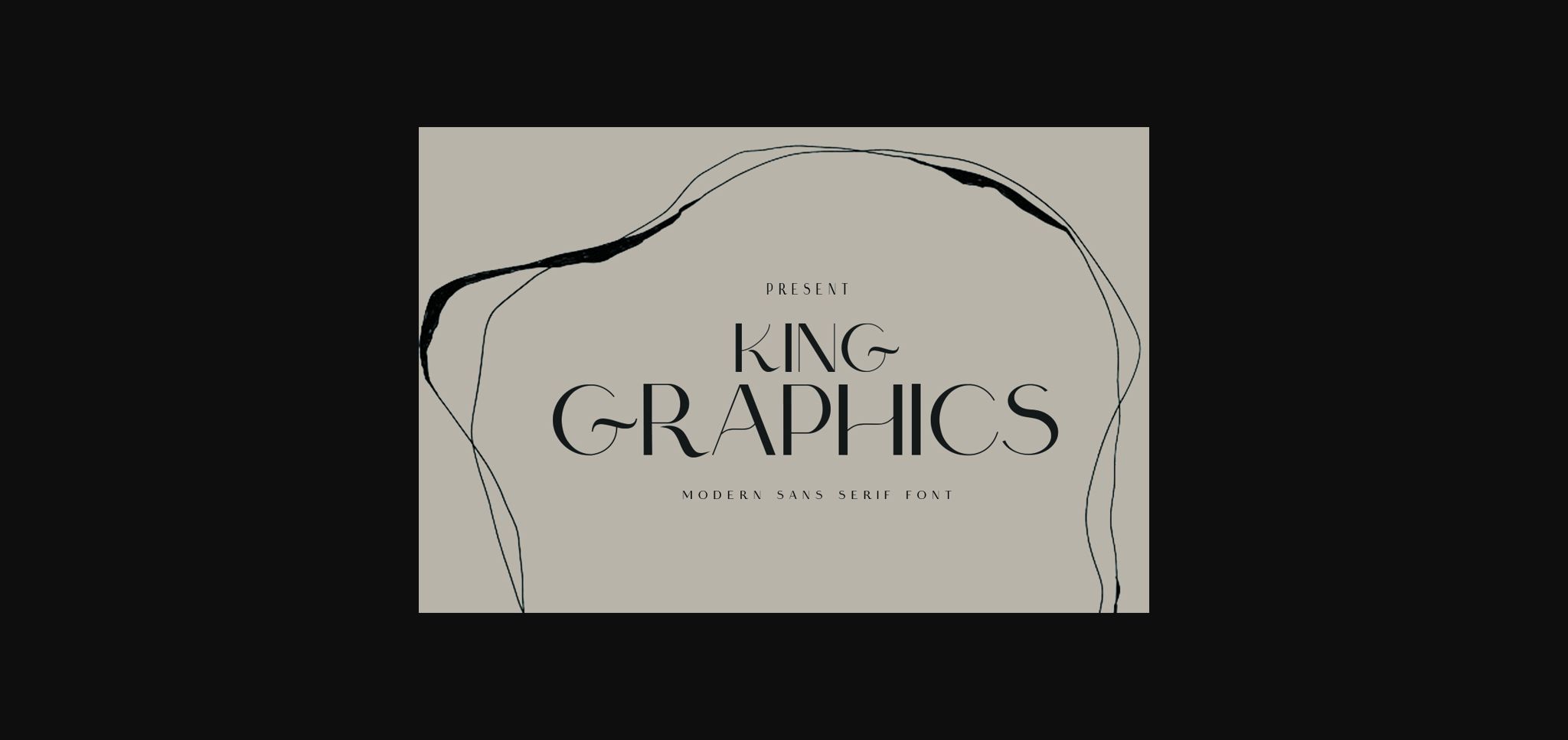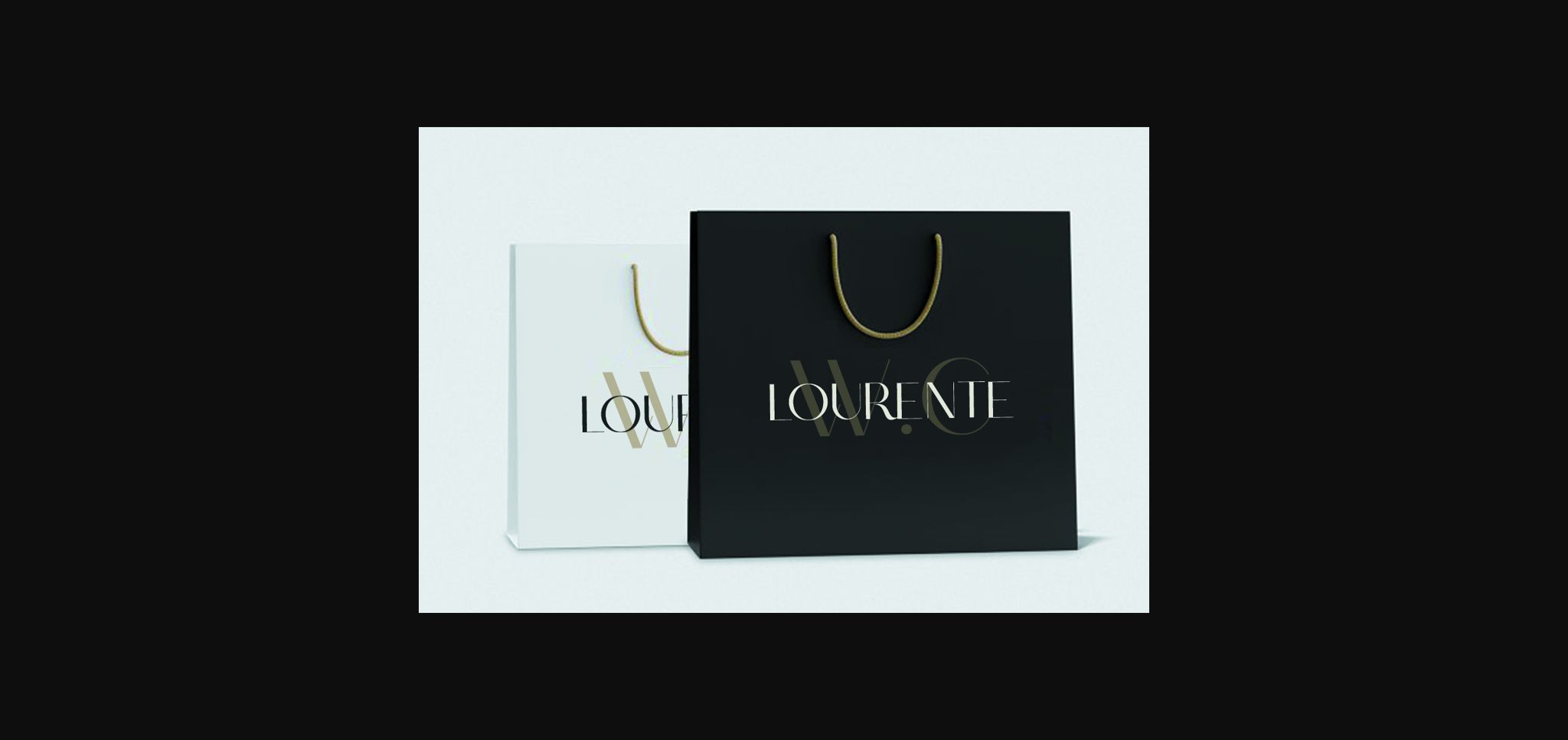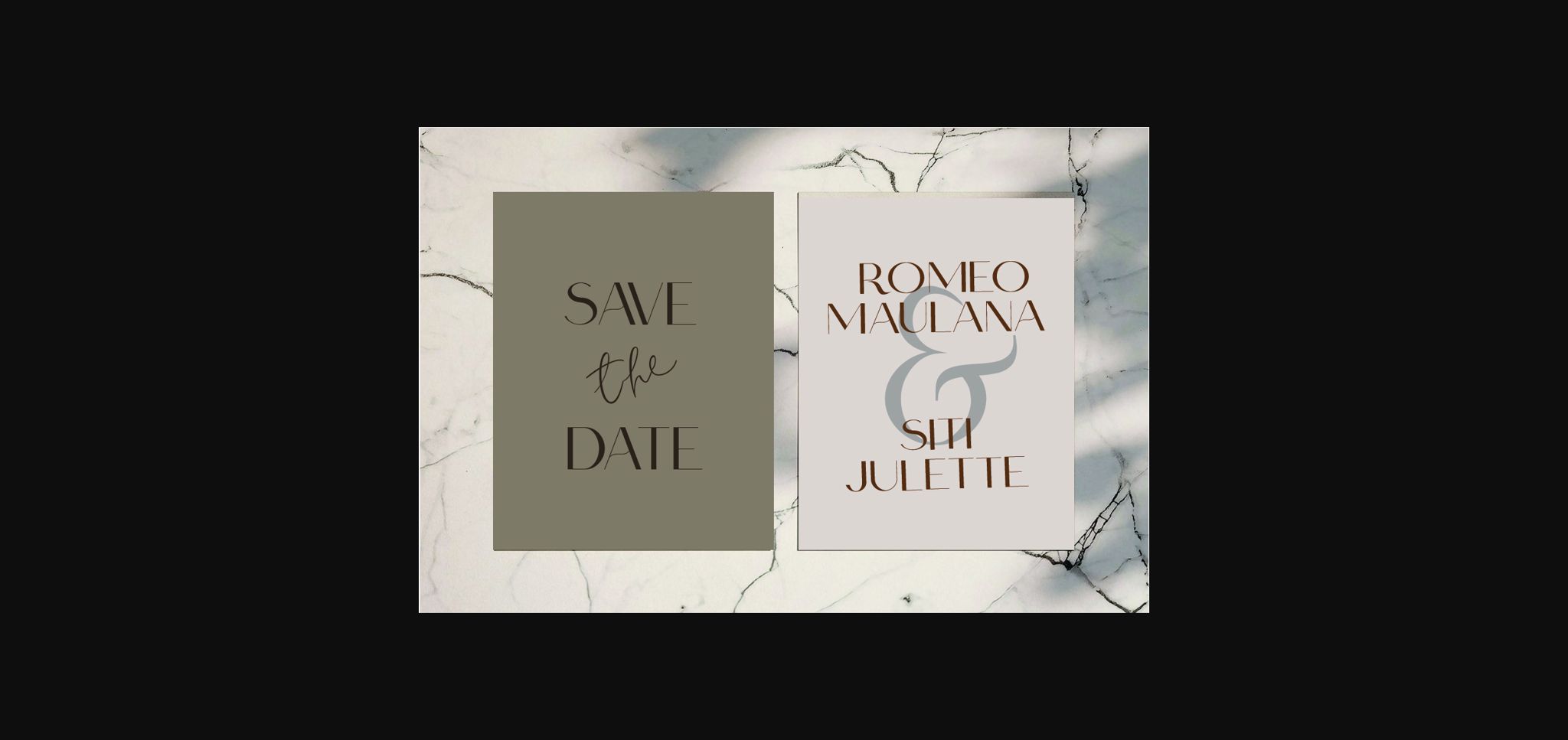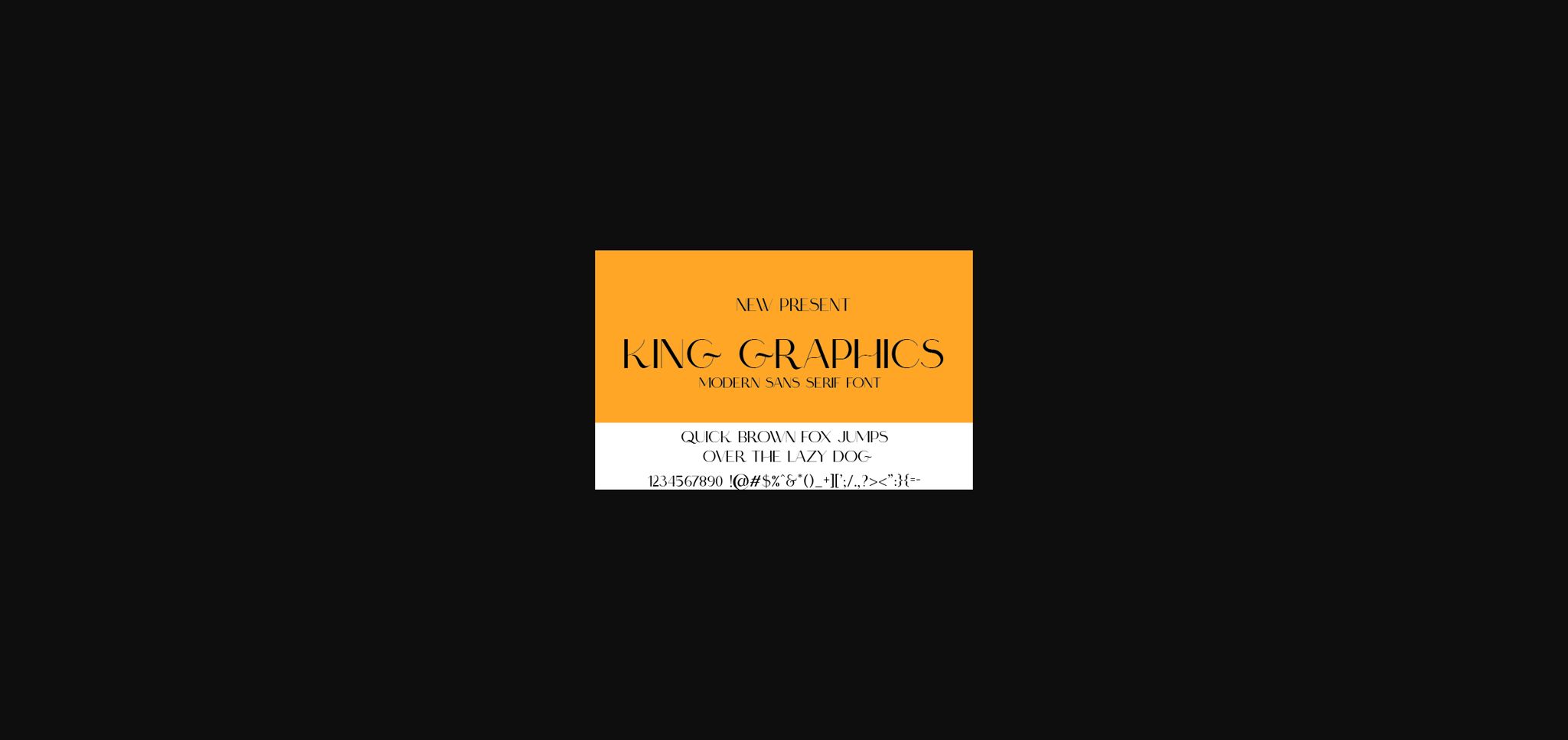
HomeSans Serif FontsKing Graphics Font Sans Serif Fonts King Graphics Font FacebookXPinterestWhatsApp 1 of 6 ... King Graphics Font Poster 2... King Graphics Font Poster 3... King Graphics Font Poster 4... King Graphics Font Poster 5... King Graphics Font Poster 6... About King Graphics Font King Graphics is an elegant sans serif font. It perfectly used for product presentation, elegant logo design, packaging or invitation cards. DOWNLOAD NOW People also explored Ole Font Tiny Foxy Font October Fun Font Family Hiking Font Billystuck Font Beone Extra Black Font Rainbow Kid Font Balleno Font Awejatty Font 305 0 TagsKing Graphics Font Previous articleKitchen Home FontNext articleSchein Font LEAVE A REPLY Cancel reply Comment: Please enter your comment! Name:* Please enter your name here Email:* You have entered an incorrect email address! Please enter your email address here Website: Save my name, email, and website in this browser for the next time I comment. Personal Use Free Zero Hour Personal Use Free Read more about this font Kaylafiz Personal Use Free Read more about this font Hillgates Personal Use Free Read more about this font Artisan Signature Personal Use Free Read more about this font BLOG Top 7 Google Fonts Alternatives for Faster and Privacy-Friendly Web Design (2025) Top 7 Google Fonts Alternatives for Faster and Privacy-Friendly Web Design (2025) When it comes to web typography, Google Fonts has long been the go-to... Fonts That Capture the Spirit of New York City Free vs Paid Fonts: Why Investing in Premium Fonts Is Worth It Using Fonts in Digital Marketing: Tips to Strengthen Your Brand Identity